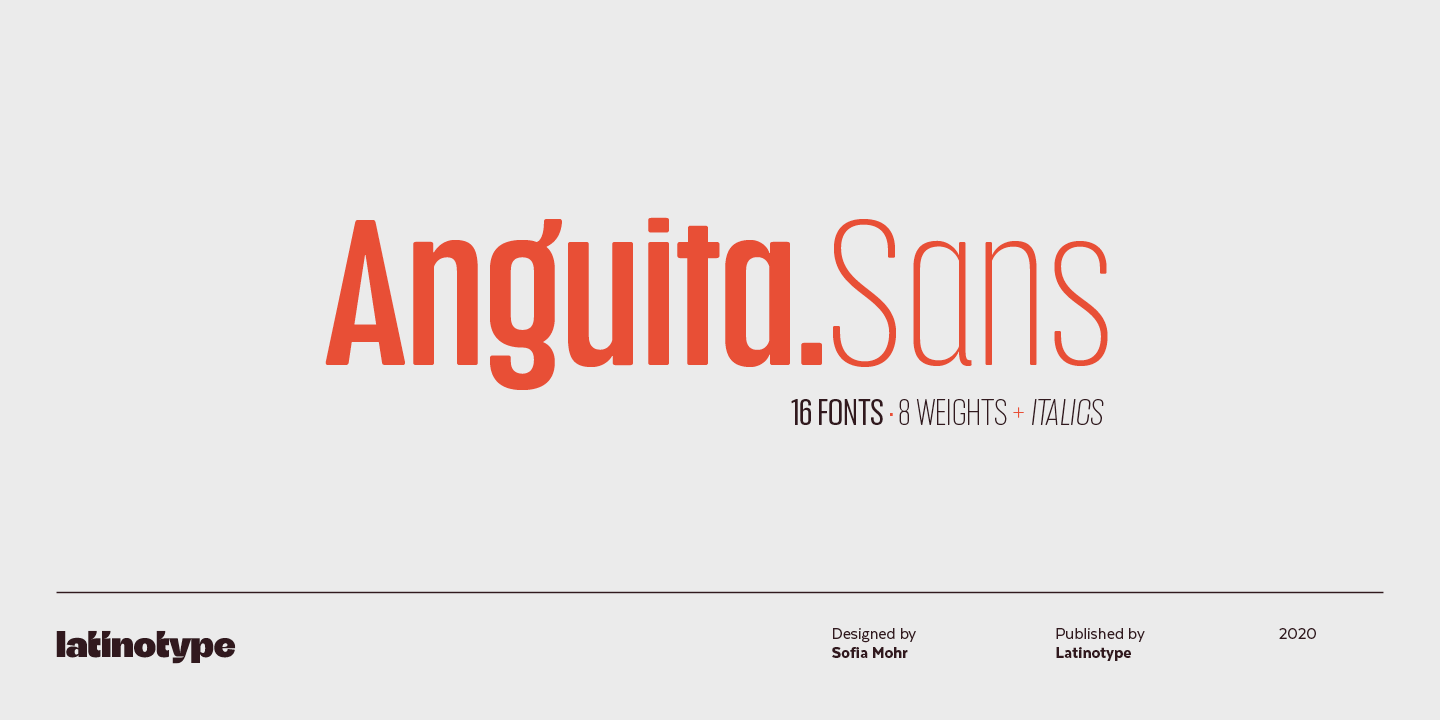
Anguita Sans Font is perfect for modern corporate branding, sleek web design, professional presentations, architectural projects, contemporary signage, editorial layouts, tech company communications, and sophisticated advertising campaigns.
What makes Anguita Sans Font exciting is its perfect balance between geometric precision and humanistic warmth that creates exceptional versatility across all design applications. This refined sans-serif typeface features carefully crafted letterforms with subtle personality touches that ensure both professional credibility and memorable visual impact, making it ideal for brands seeking contemporary sophistication.
The Anguita Sans Font family includes Thin, Light, Regular, Medium, Bold, and Black weights, each available in roman and italic variations, providing comprehensive typographic solutions while maintaining the characteristic elegance and modern appeal.
Anguita Sans Font Free Download provides access to a premium typeface that exemplifies contemporary design excellence. This versatile font combines technical precision with aesthetic refinement, making it perfect for brands requiring both functionality and distinctive character. The font's clean construction and balanced proportions ensure optimal readability across all media while its subtle personality details create memorable brand recognition. Whether designing corporate identities, digital interfaces, or marketing materials, this font delivers consistent performance with its professional standards and modern sensibility. Its comprehensive weight range enables designers to create sophisticated typographic hierarchies that maintain visual coherence while offering flexibility for diverse communication needs and brand expression requirements across multiple platforms.